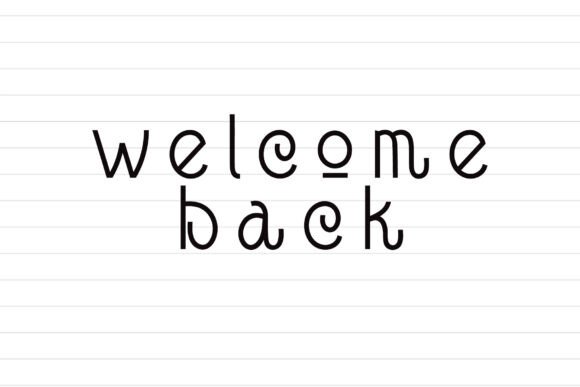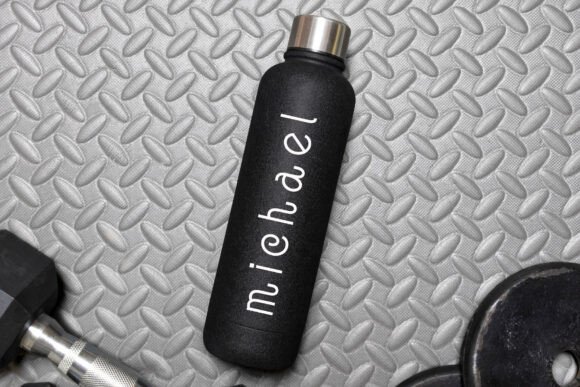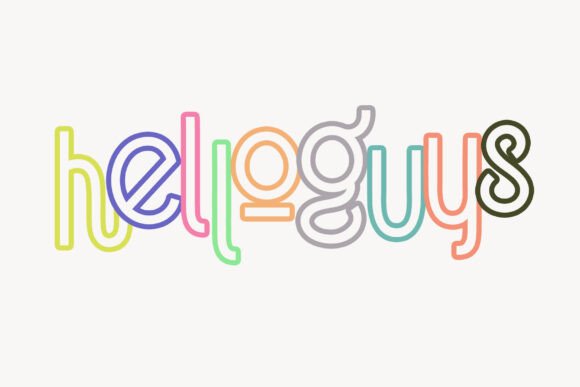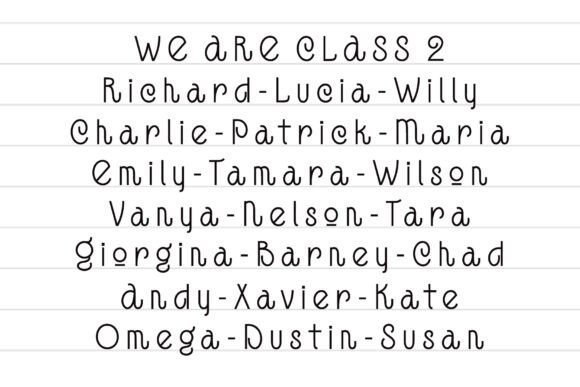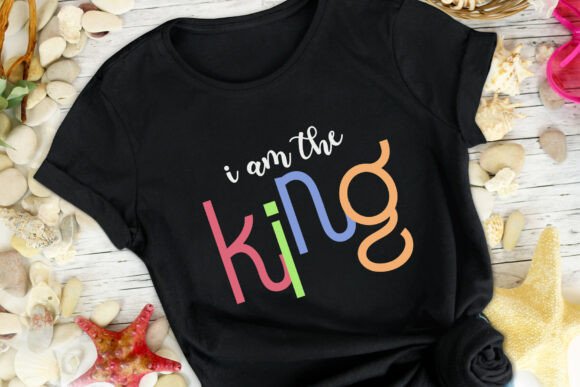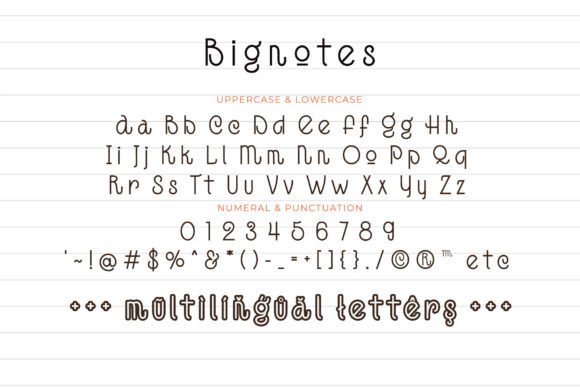
Introducing Big Notes Font: The Perfect Playful and Modern Typeface
In the world of typography, fonts play a crucial role in conveying the tone and personality of a brand, project, or creative endeavor. For designers, crafters, and writers, finding the right font can make all the difference. If you’re on the hunt for a unique, modern, and playful typeface, look no further than Big Notes Font, also known as Bignotes.
What is Big Notes Font?
Bignotes is a handwritten font with a modern twist, designed to add a touch of personality to any project. Its distinctive mix of straight and curved lines creates a stylish yet informal look, making it perfect for a wide range of applications. Whether you’re working on a journal, notes, branding, or creative project, Bignotes is the perfect choice.
Key Features of Big Notes Font
- Playful and Unique: Bignotes boasts a one-of-a-kind design that sets it apart from more traditional typefaces. Its playful vibe makes it ideal for projects that require a bit of whimsy.
- Modern Twist: With its clean lines and modern aesthetic, Bignotes is perfect for designers and crafters looking for a font that’s both trendy and timeless.
- Versatile: Bignotes can be used for a wide range of projects, from journals and notes to branding, packaging, and creative endeavors.
- Handwritten Feel: The font’s handwritten feel adds a personal touch to any project, making it perfect for those looking to add a bit of personality to their work.
Uses for Big Notes Font
Bignotes is an incredibly versatile font that can be used in a variety of contexts. Here are just a few ideas to get you started:
- Journals and Notebooks: Add a personal touch to your journal or notebook with Bignotes. Its playful vibe makes it perfect for writing, doodling, or jotting down notes.
- Branding and Packaging: Use Bignotes to add a bit of personality to your brand or product packaging. Its modern aesthetic makes it perfect for companies looking to stand out.
- Creative Projects: Bignotes is a great choice for creative projects like scrapbooking, card making, or other paper crafts.
- Digital Design: Bignotes can also be used in digital design, such as social media graphics, blog posts, or website headers.
Why Choose Big Notes Font?
With so many fonts to choose from, why should you choose Bignotes? Here are just a few reasons:
- Unique Design: Bignotes boasts a unique design that sets it apart from other fonts.
- Easy to Read: Despite its playful vibe, Bignotes is easy to read, making it perfect for body text or headings.
- Highly Versatile: Bignotes can be used in a wide range of contexts, from print to digital.
- Fun and Trendy: Bignotes is the perfect choice for designers and crafters looking to add a bit of fun and trendiness to their work.
In conclusion, Big Notes Font, or Bignotes, is a playful and unique handwritten font with a modern twist. Its mix of straight and curved lines creates a stylish yet informal look, making it perfect for journals, notes, branding, and creative projects. If you’re looking for a fun and trendy typeface, Bignotes is the perfect choice. With its versatility, unique design, and ease of use, Bignotes is sure to become a go-to font for designers and crafters alike.